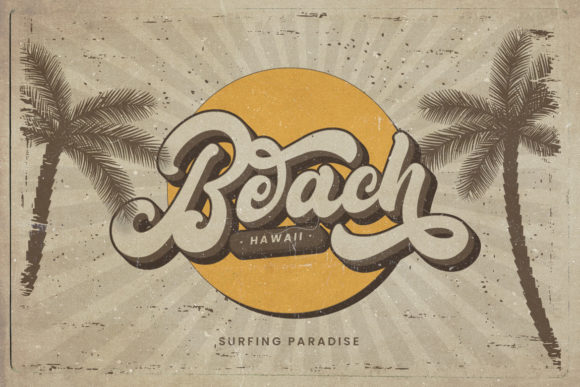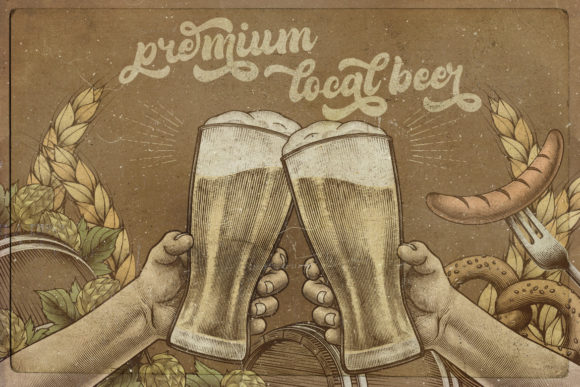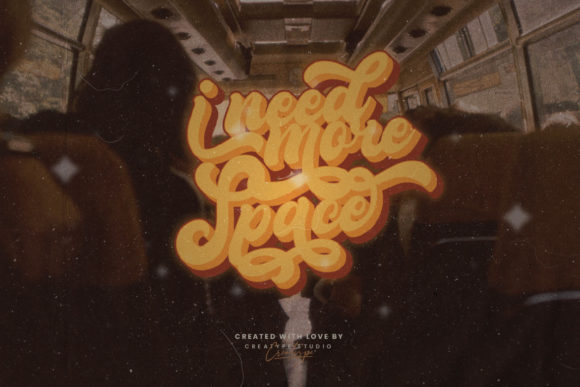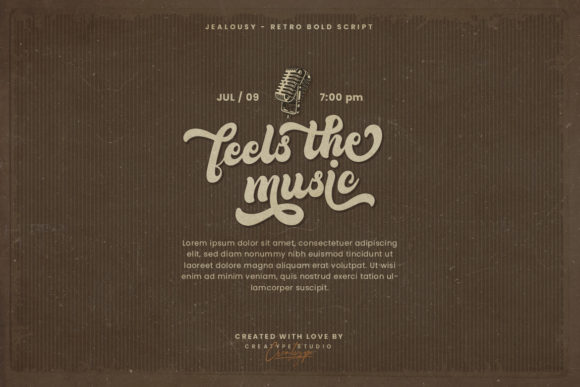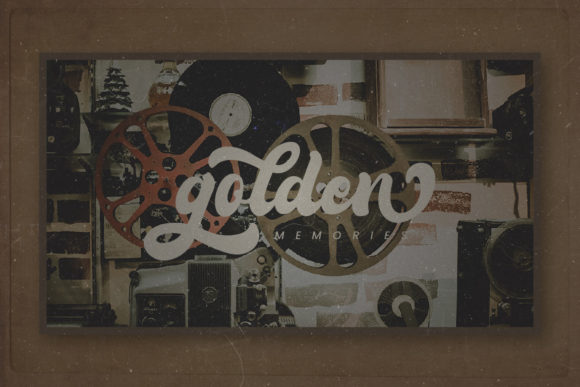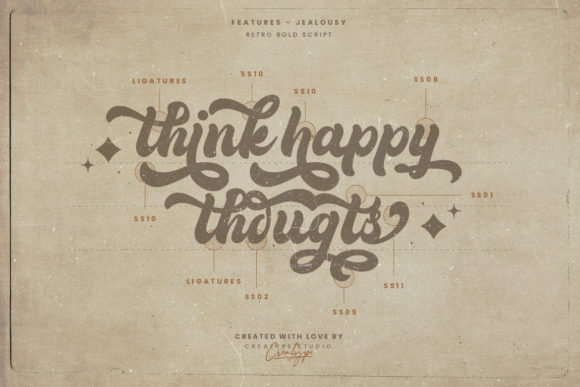
Introduction to Jealousy Font
Jealousy is a gorgeous and bold handwritten font, crafted to give your headlines and logotype projects a stylish touch.
This font reads as strong, confident, and dynamic and can add tons of nostalgic character to your designs Jealousy is PUA encoded which means you can access all of the glyphs and swashes with ease.
Key Features of Jealousy Font